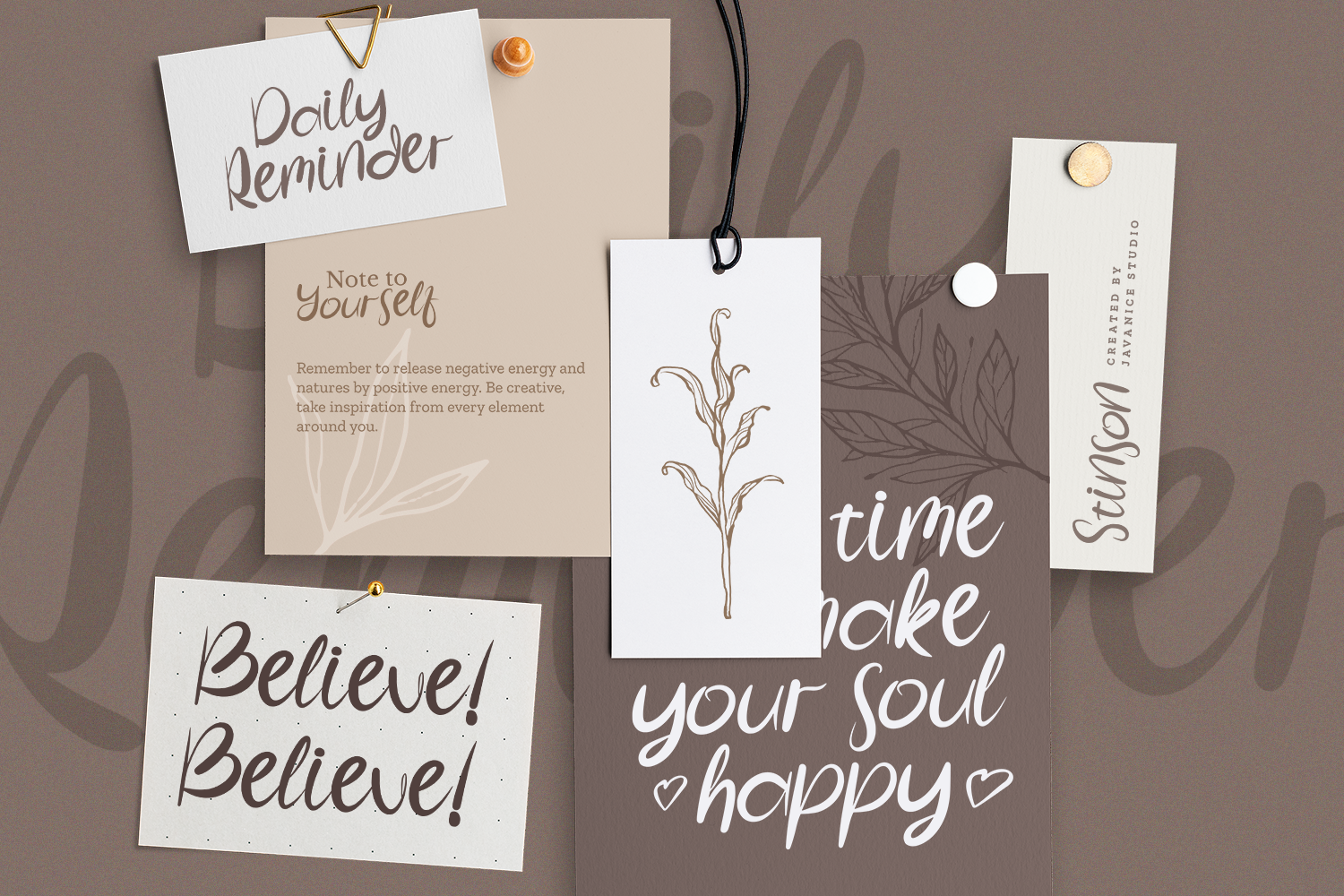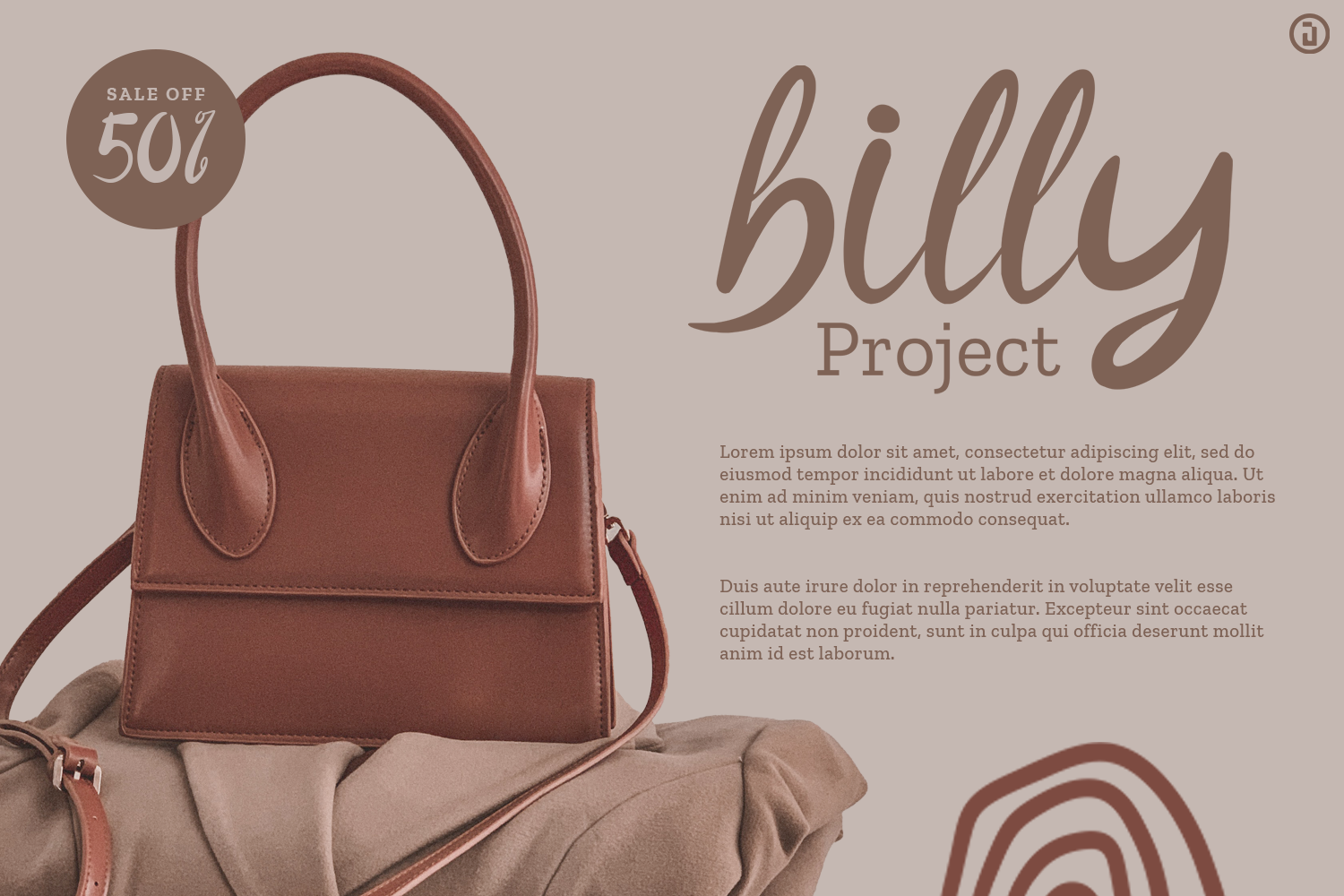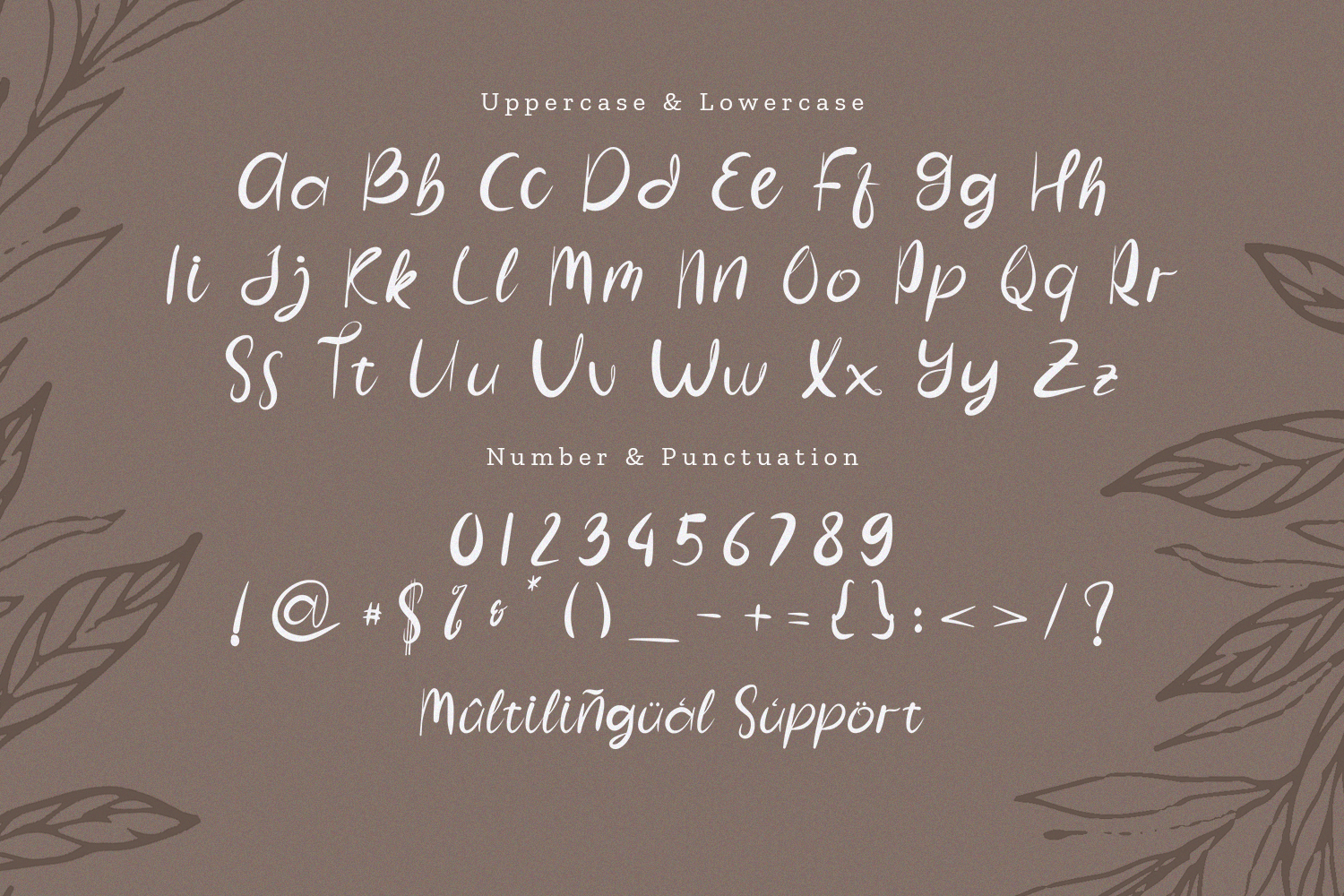
Stinson Script Font
This is a script font. Kikola Nafi is perfect for branding project, apparel, labels, magazines, books, greeting / wedding cards, packaging, fashion, make up, stationery, and any type of advertising purpose or just used to express words above the background.